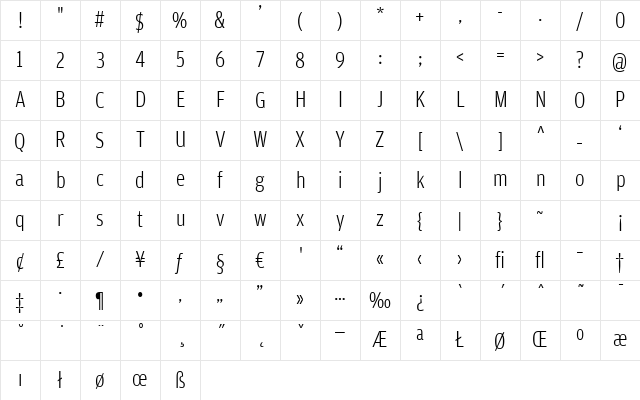
Complete AmplitudeCond-Light Regular glyph index. Displaying only characters natively supported by AmplitudeCond-Light Regular font.
AmplitudeCond-Light is a composed and adaptable typeface that performs quietly and consistently across a wide range of design contexts. Its slender proportions lend an understated elegance to any composition. Its narrow stance lets it pack a punch even in space-constrained designs.